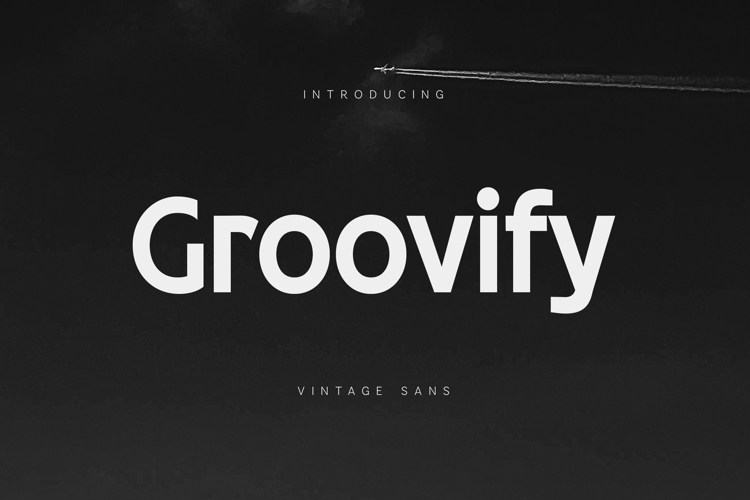
GROOVIFY Vintage Sans Serif Font
Groovify is a bold vintage sans serif font inspired by retro aesthetics and modern clarity. With strong geometric shapes, rounded corners, and confident proportions, this typeface delivers a nostalgic yet contemporary feel that stands out across digital and print design.
Designed for impact and readability, Groovify is ideal for branding, logos, posters, packaging, headlines, apparel, social media graphics, and creative projects that need a timeless retro tone with modern usability. Its clean structure and friendly curves make it versatile while maintaining a distinct vintage personality.
Groovify is perfect for designers looking to blend retro charm with bold simplicity—where vintage character meets modern design needs.